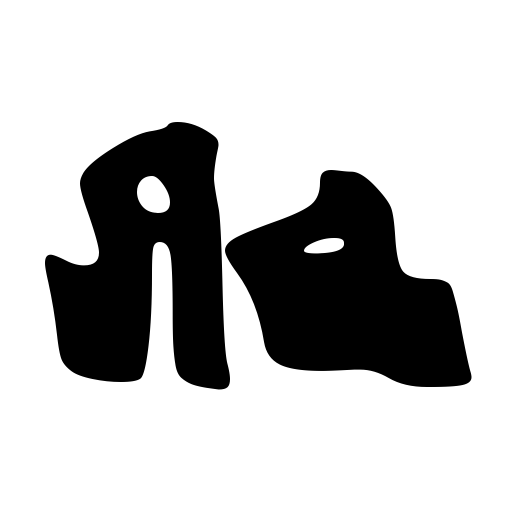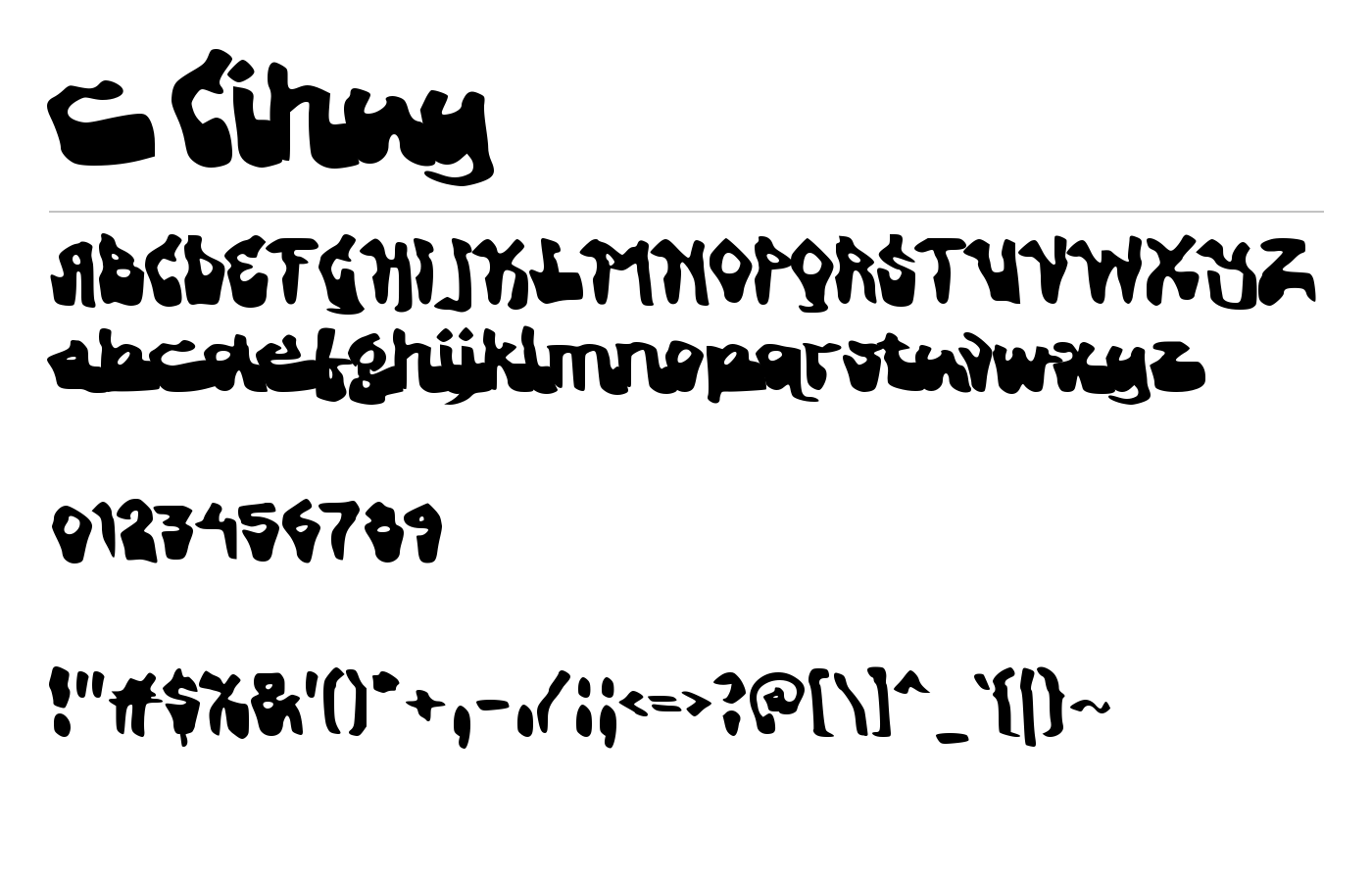
Cihuy is a bold, playful display font with irregular, chunky letterforms that give it a hand-drawn, almost graffiti-like vibe. Its heavy weight and quirky shapes make it ideal for eye-catching logos, posters, or creative projects where a fun, informal style is desired. This font works best in larger sizes where its unique character can stand out and add personality.
c Cihuy Font
About c Cihuy Font